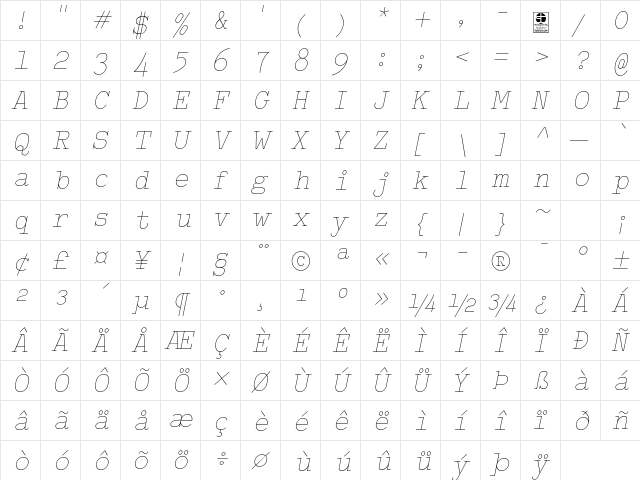
Typo Writer Thin Demo Italic Font Preview
| Foundry | StudioTypo |
| Designer | MEHMET ABACI |
Design Context for Typo Writer Thin Demo Typeface
Typo Writer Thin Demo offers clean, dependable letterforms without strong stylistic allegiance, making it a practical choice for designers who need flexibility. The dynamic lean of this cut emphasises speed and emphasis in any layout. The delicate stroke weight brings airiness and refinement to layouts.
Pro Tip: Try Typo Writer Thin Demo for annotation and caption copy alongside an upright companion — the contrast in angle creates a dynamic but ordered typographic system.